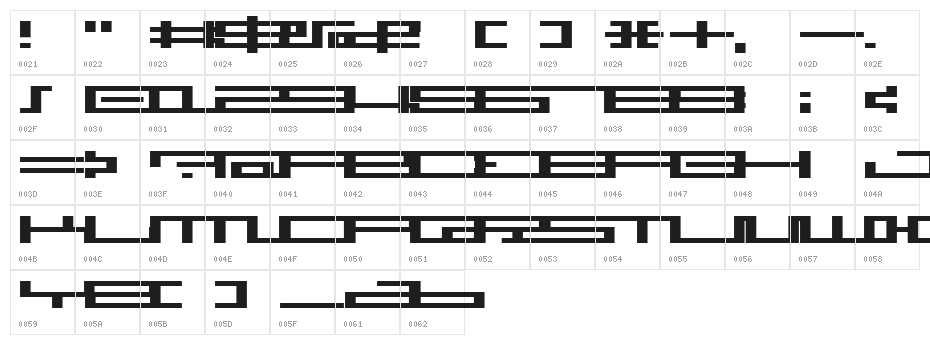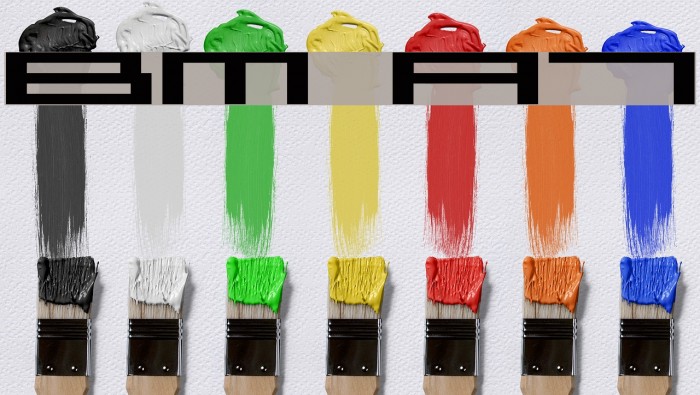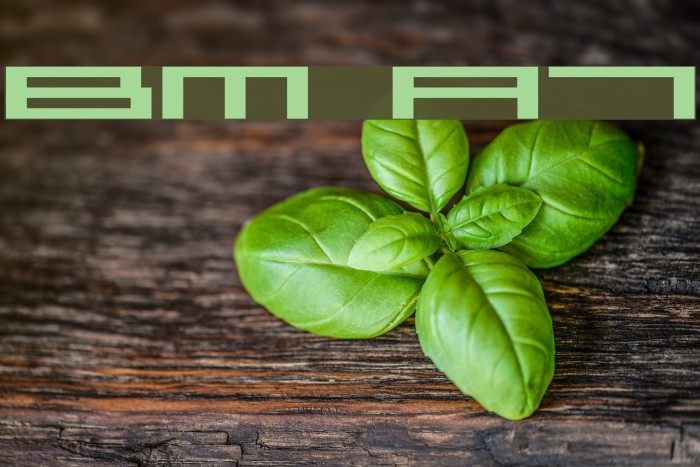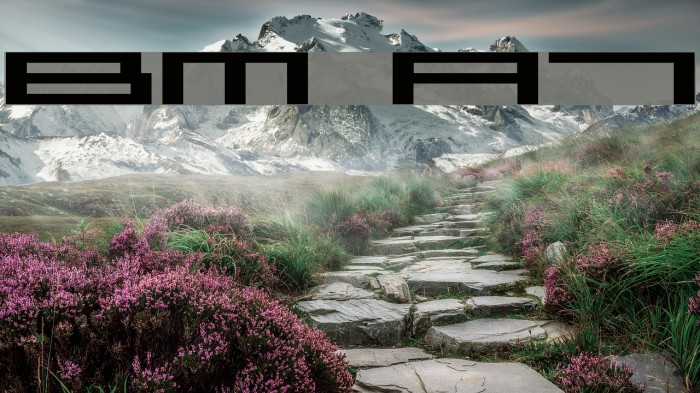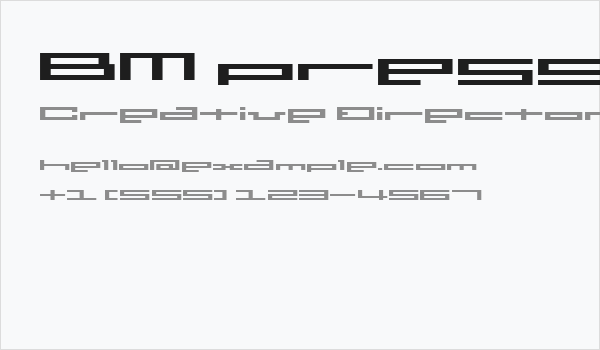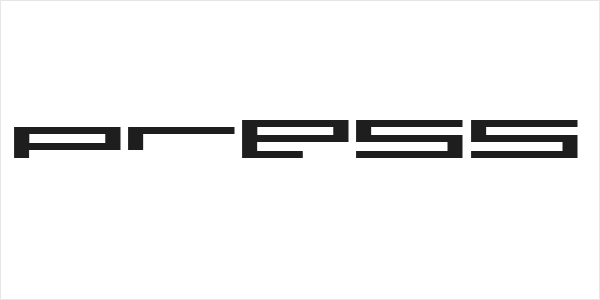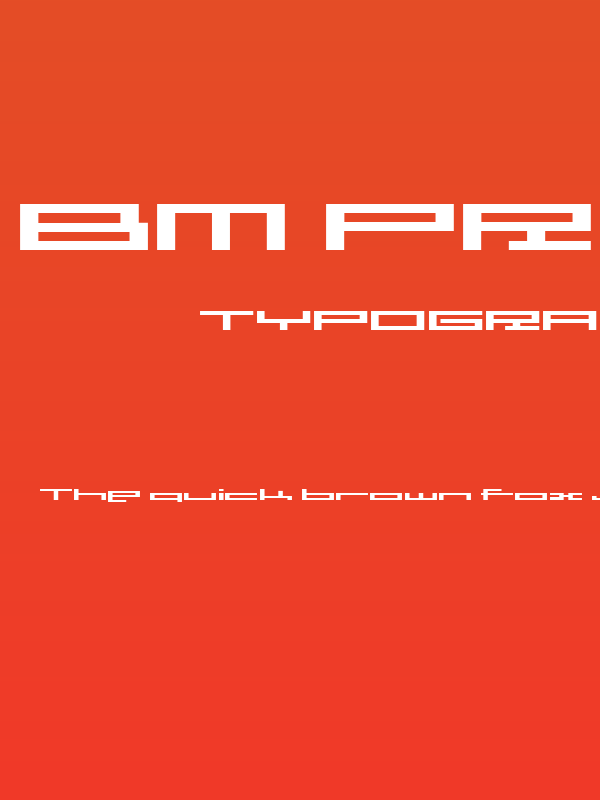
BM press A7 Font
BM press A7 Description
This font features a distinctly modern and geometric design, characterized by its blocky and angular letterforms. Each character is constructed with a consistent stroke width, giving it a uniform appearance across both uppercase and lowercase letters. The font's structure is reminiscent of digital or technological themes, with a futuristic aesthetic that is both bold and eye-catching. The numerals and special characters maintain the same geometric style, ensuring a cohesive look throughout. Its unique design makes it suitable for projects that require a modern, tech-inspired feel.